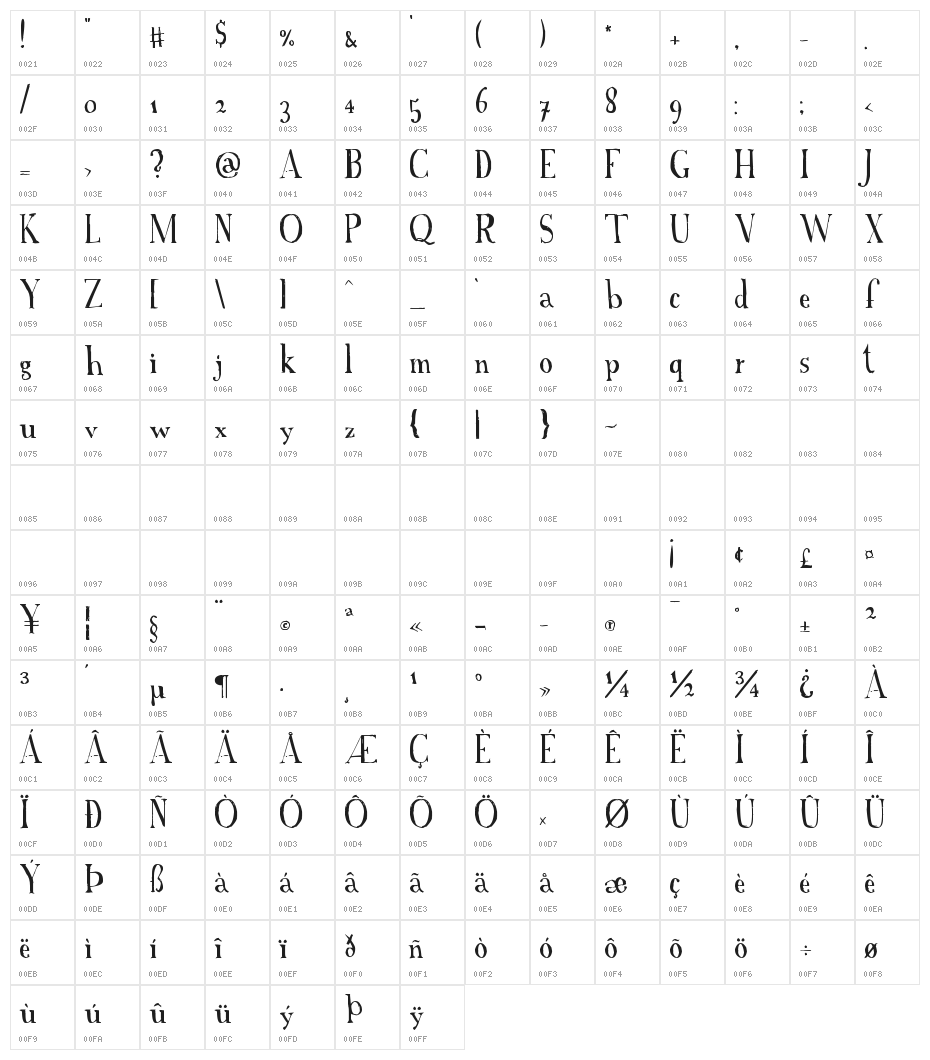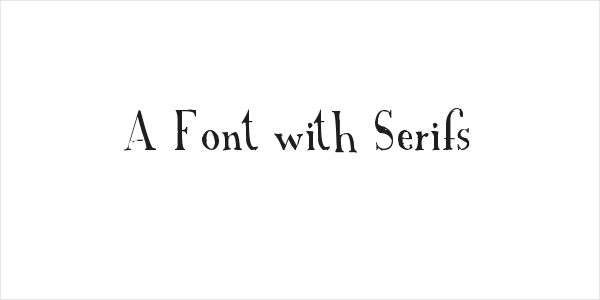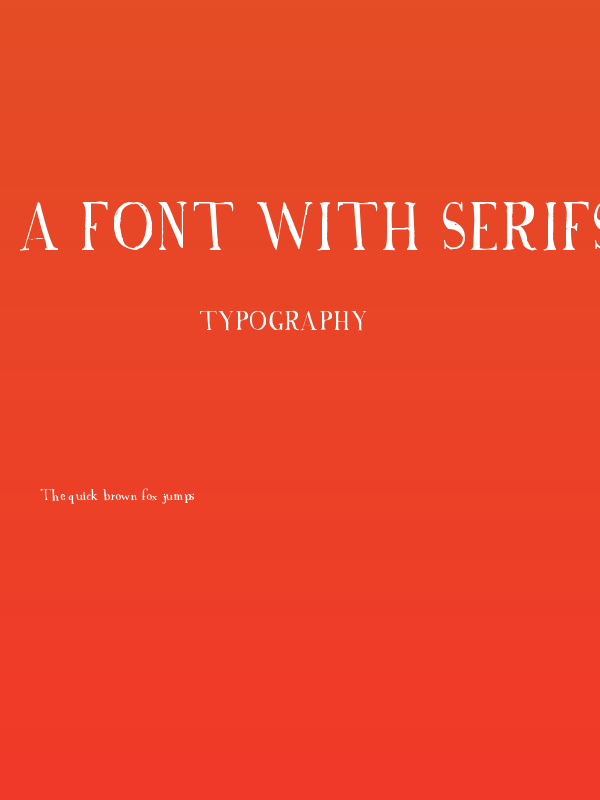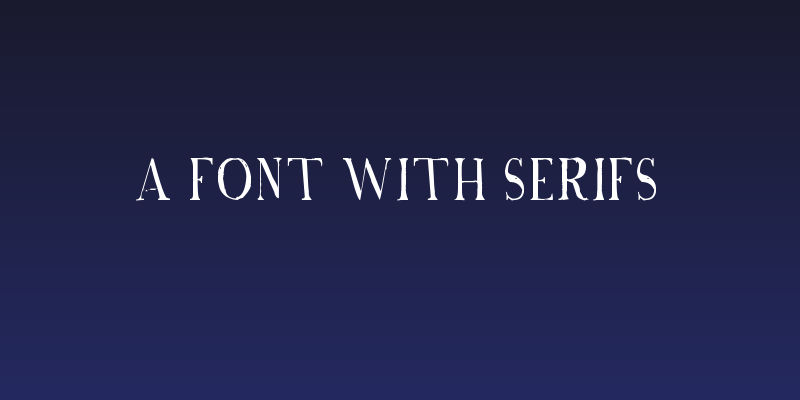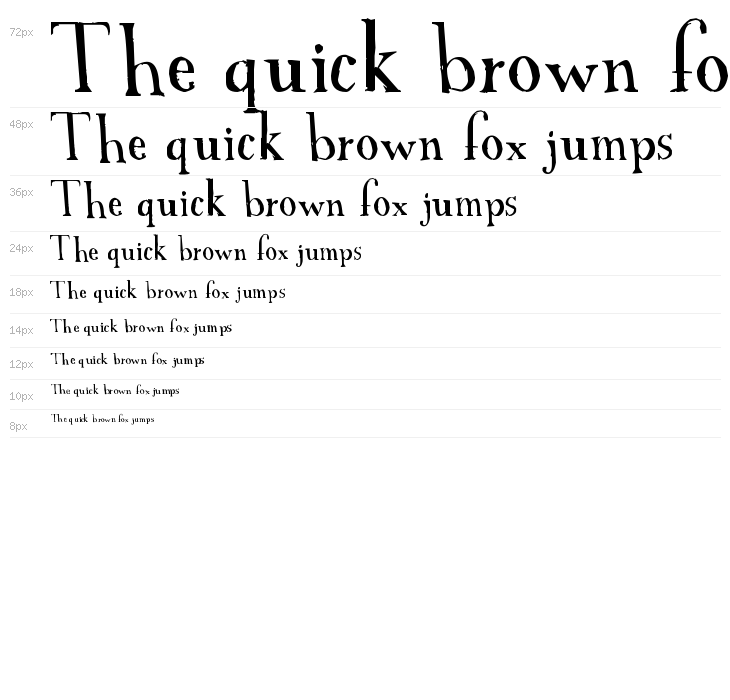
A Font with Serifs Font
A Font with Serifs Description
This font features a distinctive serif style with a hand-drawn, slightly irregular appearance. The uppercase letters are tall and elegant, with pronounced serifs that give them a classic yet artistic feel. The lowercase letters maintain a consistent style, with some characters like 'g' and 'y' having unique, flowing tails. Numbers are bold and clear, maintaining the serif theme, while special characters are creatively designed to match the overall aesthetic. The font's uneven stroke widths add a dynamic and lively character, making it suitable for creative and expressive projects.
| Overall Style | Artistic, Classic |
| Use Case | Headlines, Logos, Artistic projects |
| Proposed Projects | Ideal for artistic projects, book covers, posters, and branding that require a classic yet creative touch. |